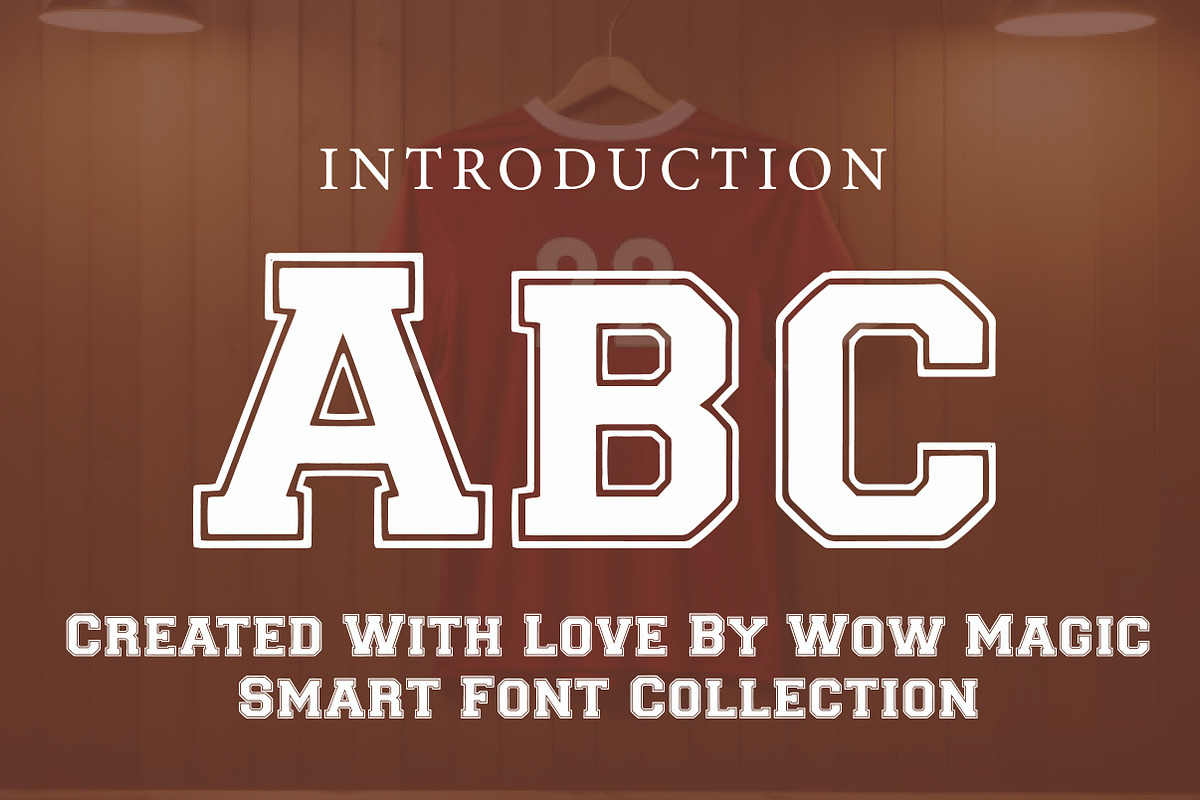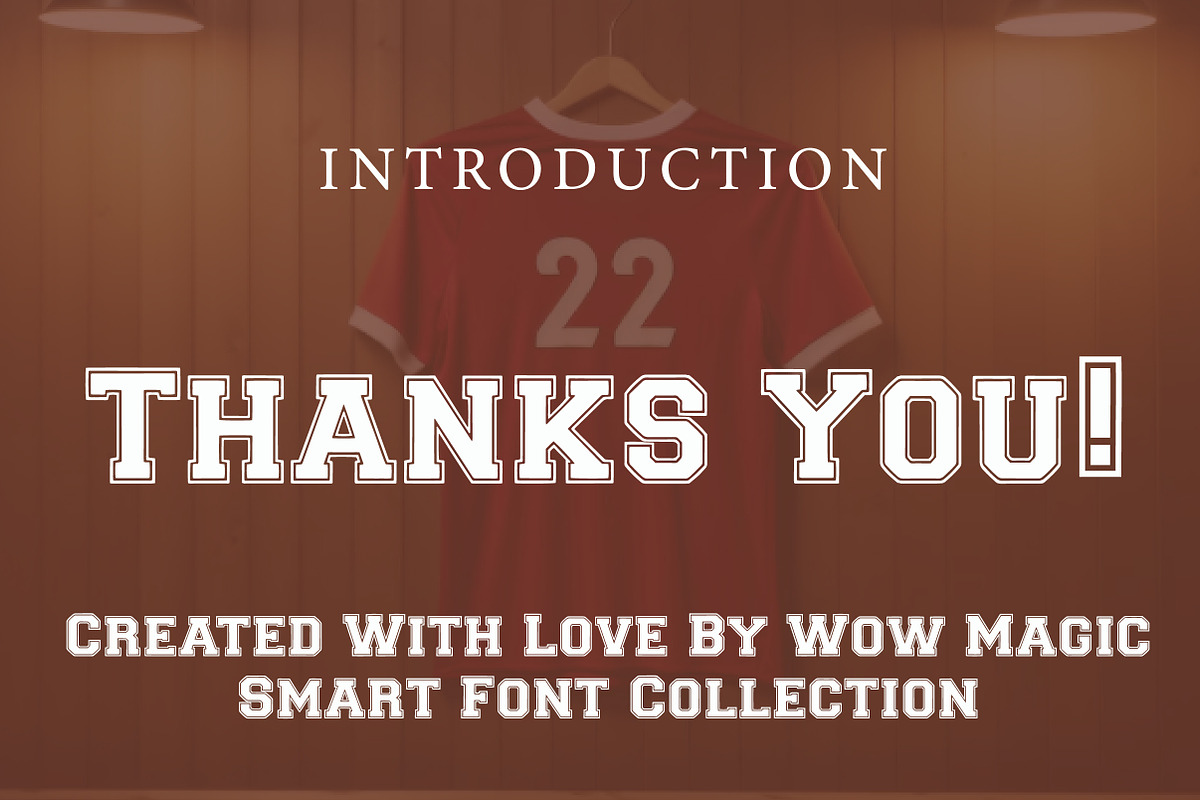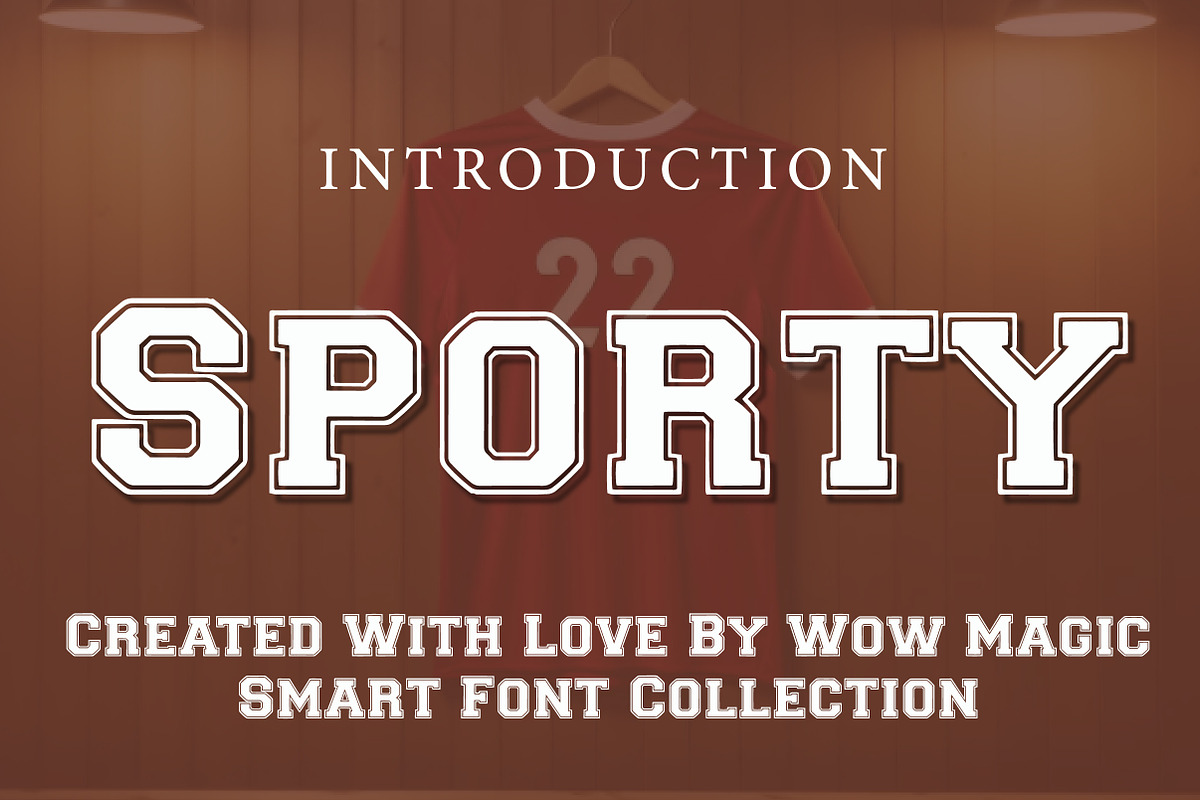
Sporty
Sporty is a bold athletic display font inspired by classic varsity lettering, team jerseys, and competitive sports branding. With its strong block structure, outlined details, and powerful collegiate style, this typeface delivers a confident and energetic look that instantly stands out.
The layered outline effect adds depth and character, making it perfect for sports logos, team branding, jersey designs, posters, merchandise, gym graphics, school projects, and bold headline layouts. Its solid construction keeps the text highly readable while giving every word a tough and professional athletic presence.
Sporty is ideal for designers who want a font that feels competitive, dynamic, and full of team spirit. Whether you are creating a football poster, basketball logo, esports branding, or varsity-inspired apparel design, this font brings strength, energy, and winning attitude to your work.